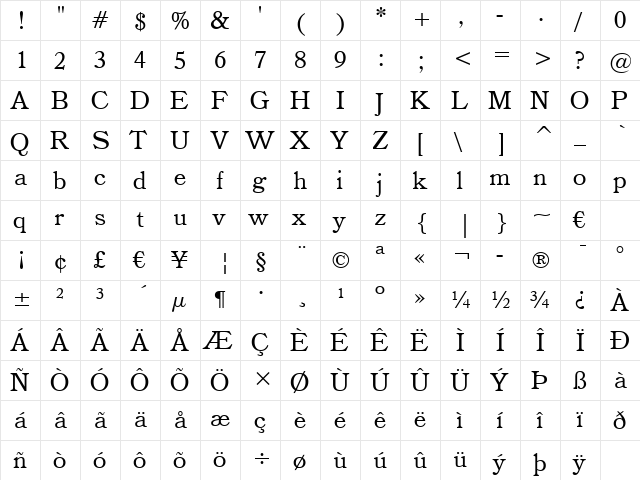
Bookman Hd BT Roman
Design Context for Bookman Hd BT Typeface
Bookman Hd BT is a composed and adaptable typeface that performs quietly and consistently across a wide range of design contexts.